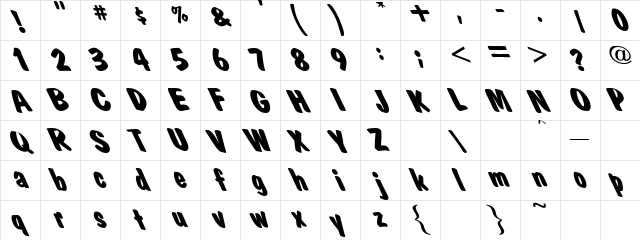
Market Bold Left Regular Free Font
Market Bold Left Regular
Design Context for Market Bold Left
Market Bold Left is a composed and adaptable typeface that performs quietly and consistently across a wide range of design contexts. Its bold stroke weight gives it real presence on the page.